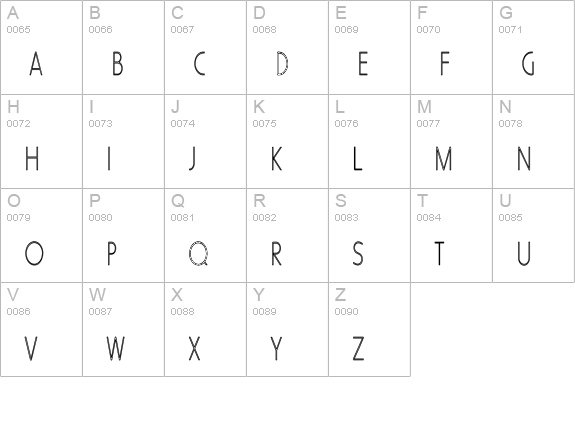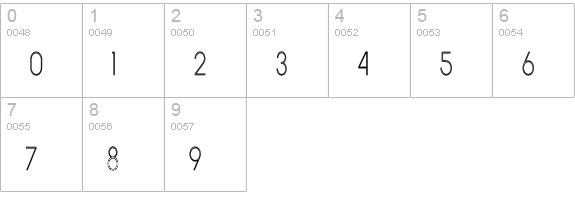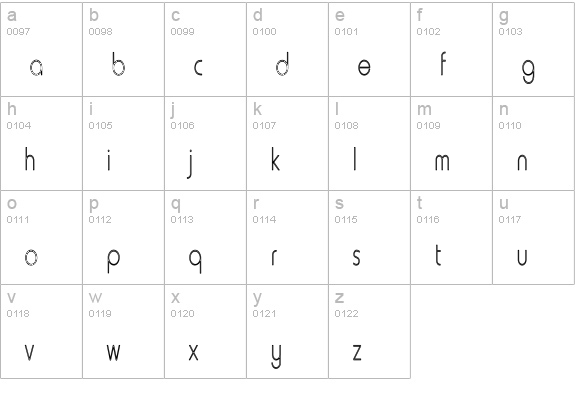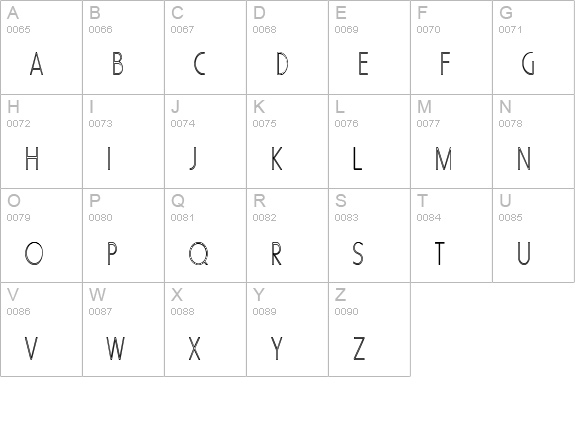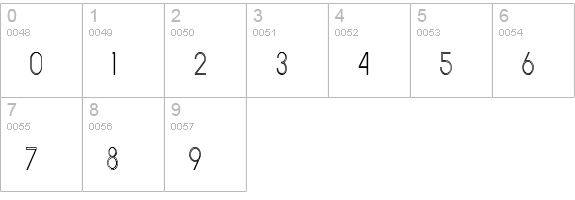
Howard-LightHC Font Details
Howard-LightHC is a sleek and modern font that perfectly balances elegance and readability. With its clean lines and sophisticated design, this typeface is ideal for a wide range of design projects, from branding to editorial design. The light weight of the font gives it a delicate and airy feel, making it perfect for conveying a sense of sophistication and refinement. Best of all, Howard-LightHC is available for free download at FontsMarket.com. This means you can easily access this stunning font and use it in your projects without any cost. Whether you're a professional designer or a hobbyist looking to elevate your creations, Howard-LightHC is a versatile and stylish choice that will not disappoint. Elevate your designs with this beautiful font today, and see the difference it can make in your projects.